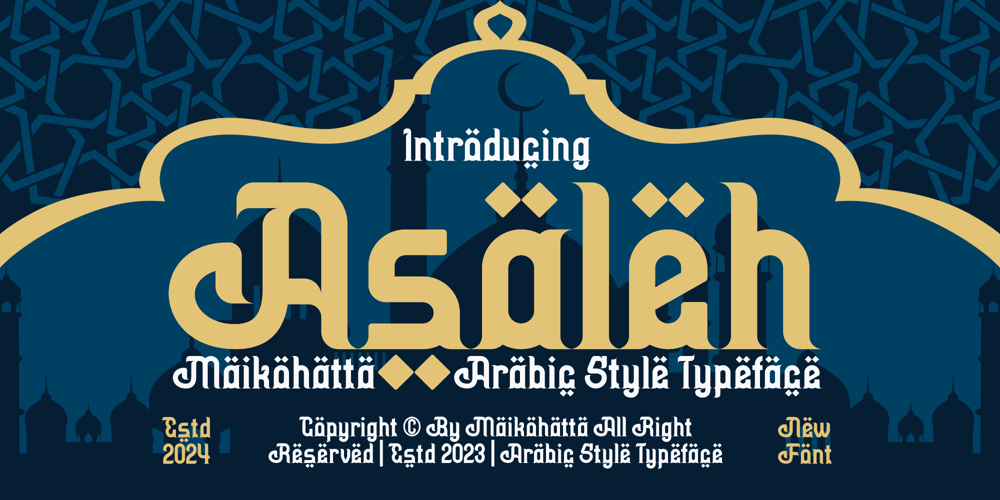
Asaleh Font Family was designed by Gilang Ternadho and published by Maikohatta. Asaleh contains 1 styles and family package options. Introducing our new product Asaleh – Arabic Style Typeface is a bold and authentic display font. The font is suitable for any branding project like logo, Template Design, esport, and many more. outstanding in a wide range of contexts.